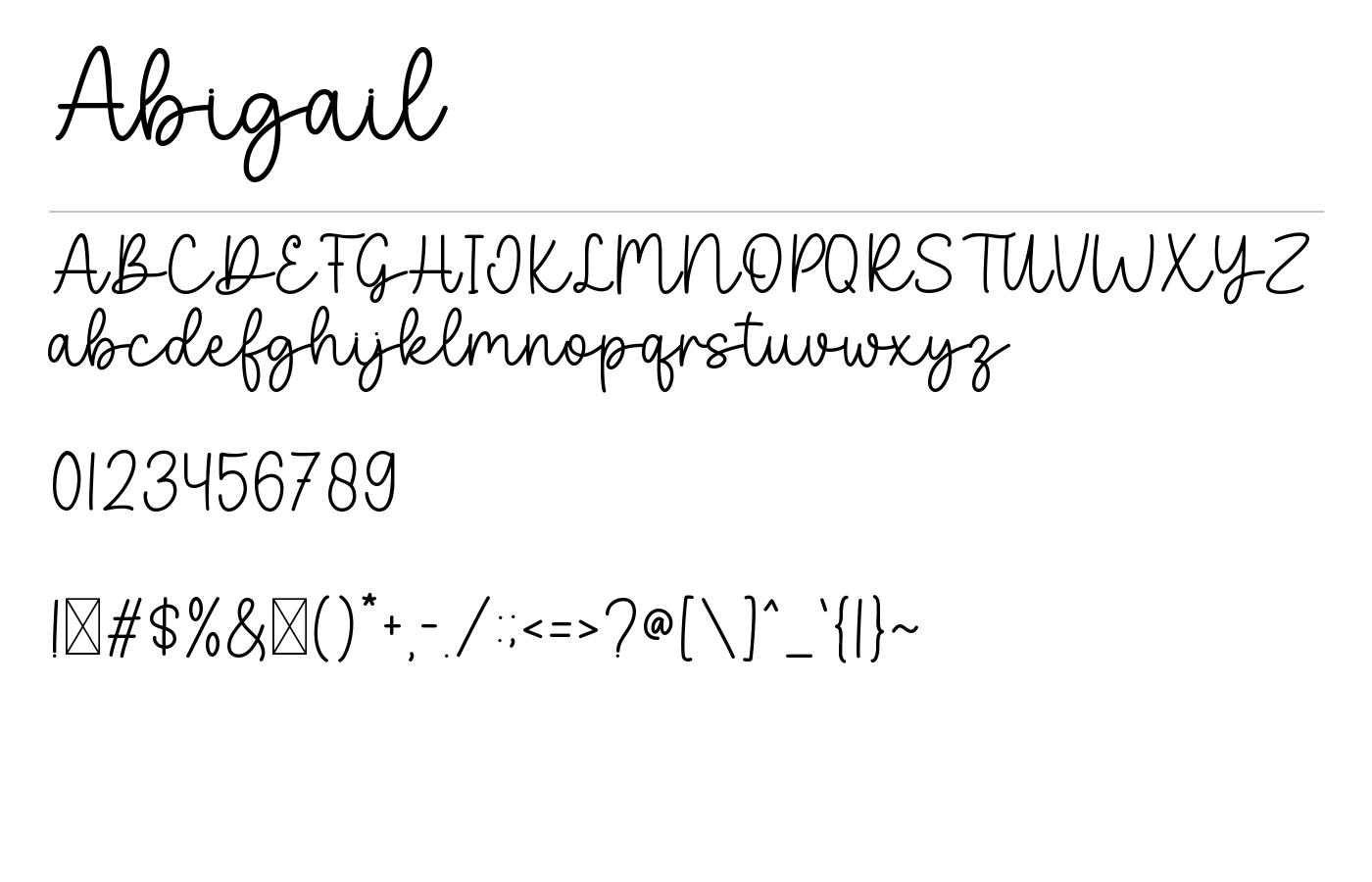
Abigail Font is a delicate and charming handwritten script with a light weight and a casual, friendly feel. Its tall x-height and smooth, flowing letterforms make it perfect for personal branding, invitations, and creative projects that want to convey warmth and approachability. This font works well in designs that need a personal touch without sacrificing readability or elegance.
Abigail Font
About Abigail Font